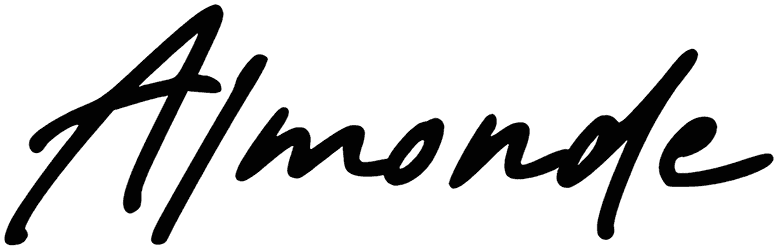
What is applauded by the designers are the retro wave and cursive edges of the creative characters of this script font, featuring a sense of closeness, natural, and also friendly that makes it ideal for inserting in any greeting cards, quotes, posters, and prints on T-shirts.
Merijola appears in deep interconnection letters that make it a bit unreadable, so what are you waiting for? Give this brush font a shot and see how it fits!